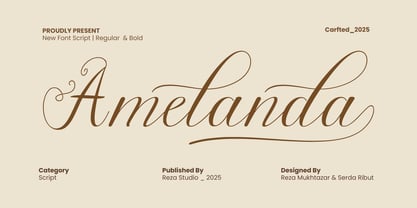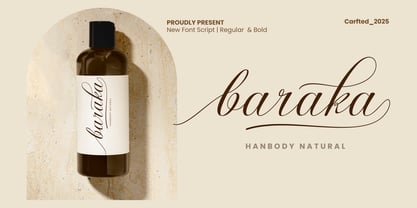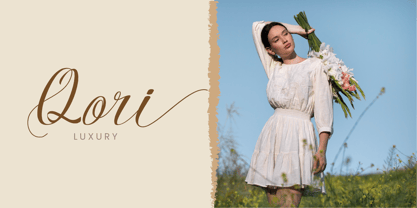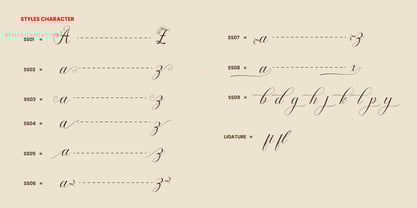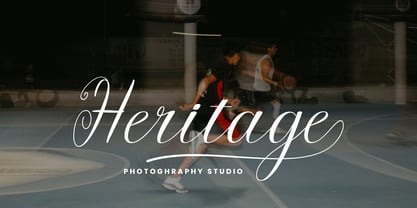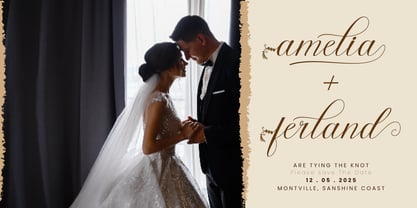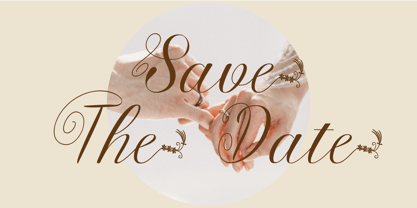
Amelanda
by Rezastudio
The Amelanda Font Family was designed by Reza Mukhtazar and published by Rezastudio. Amelanda contains 2 styles and family package options. More about this family
Amelanda is a modern script font that blends elegance, charm, and a handcrafted feel. With its graceful curves and smooth strokes, Amelanda is perfect for wedding invitations, elegant branding, logos, packaging, and social media. It includes Regular and Bold styles, along with lovely swashes and stylistic alternates to enhance your design.
Designers: Reza Mukhtazar
Foundry: Rezastudio